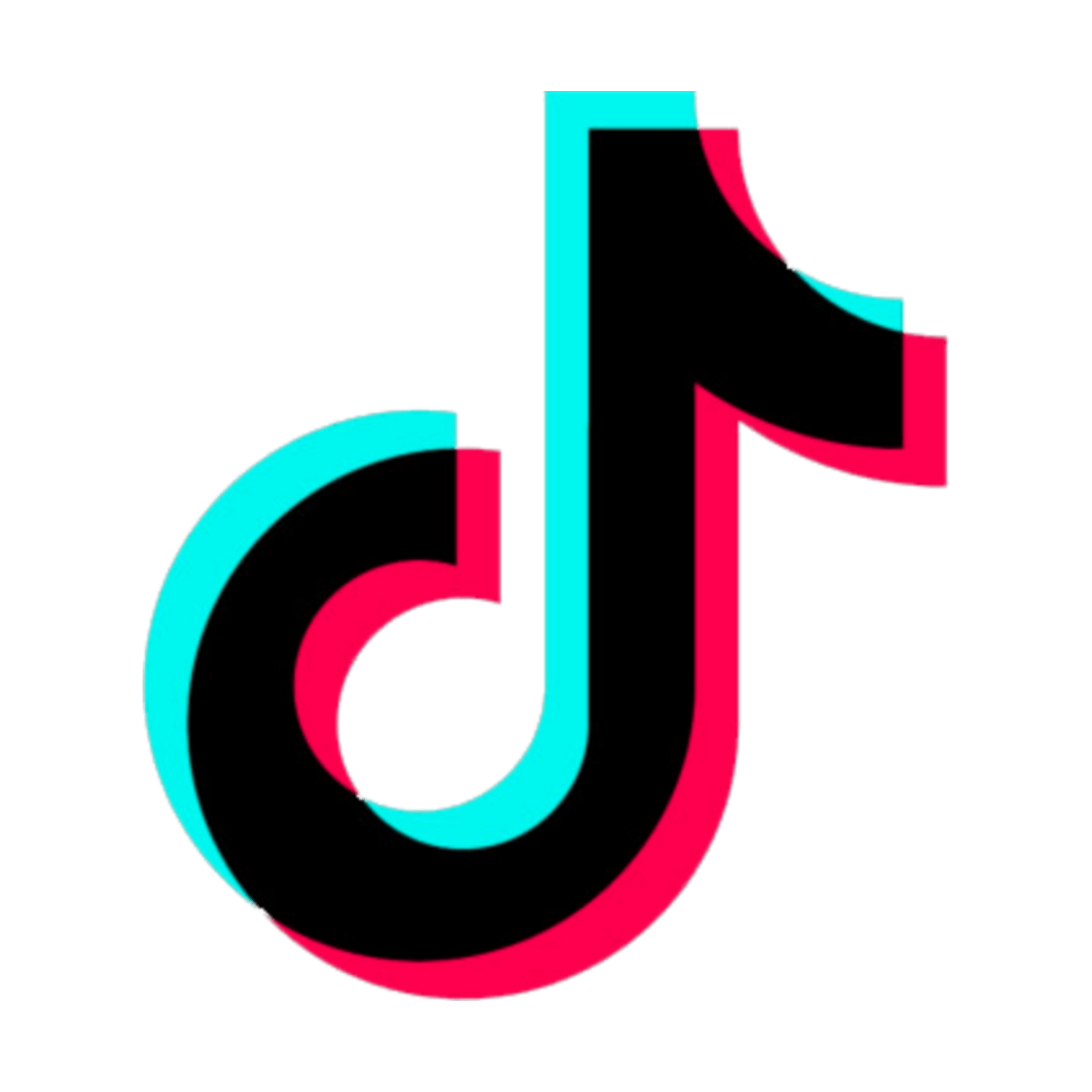
Tiktok Logo Text Font. It is a unique and elegant font. Montserrat is a google font.
The font used for the ik in tik and ok in tok looks to be futura maxi standard bold. By default, tiktok comes with a series of distinctive fonts: Free for commercial use high quality images
However, The T Looks To Be From Conference Regular.
This font last updated in november 2017 and redrawn by jacques le bailly. Montserrat suggested by heron2001 #2. Tiktok lets you change the text alignment and font you prefer for your text.
Initially, The Name Consisted Of Two Separate Words Tik And Tok.
The font used for the ik in tik and ok in tok looks to be futura maxi standard bold. The world’s most popular and easiest to use icon set just got an upgrade. You can make your profile name/nickname more prominent, special, and noticeable with beautiful, stylish tiktok fonts.